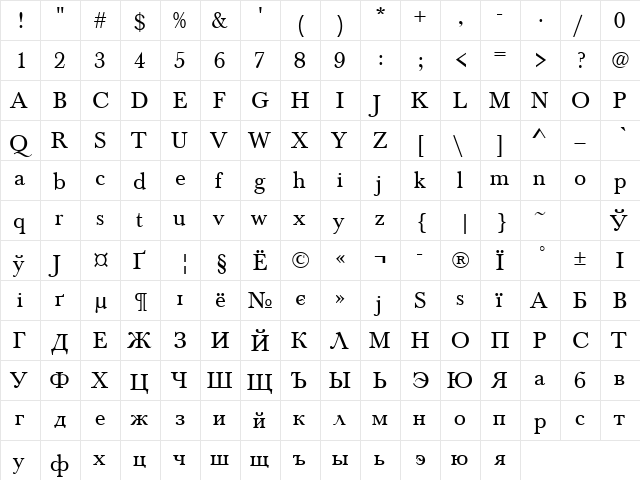
Beauty Normal
Design Context for Beauty Typeface
Beauty takes a measured approach to typography — its balanced proportions and neutral character make it a reliable workhorse for both digital and print work.
Pro Tip: Use Beauty in both headline and body roles to test its range before committing to a single application.